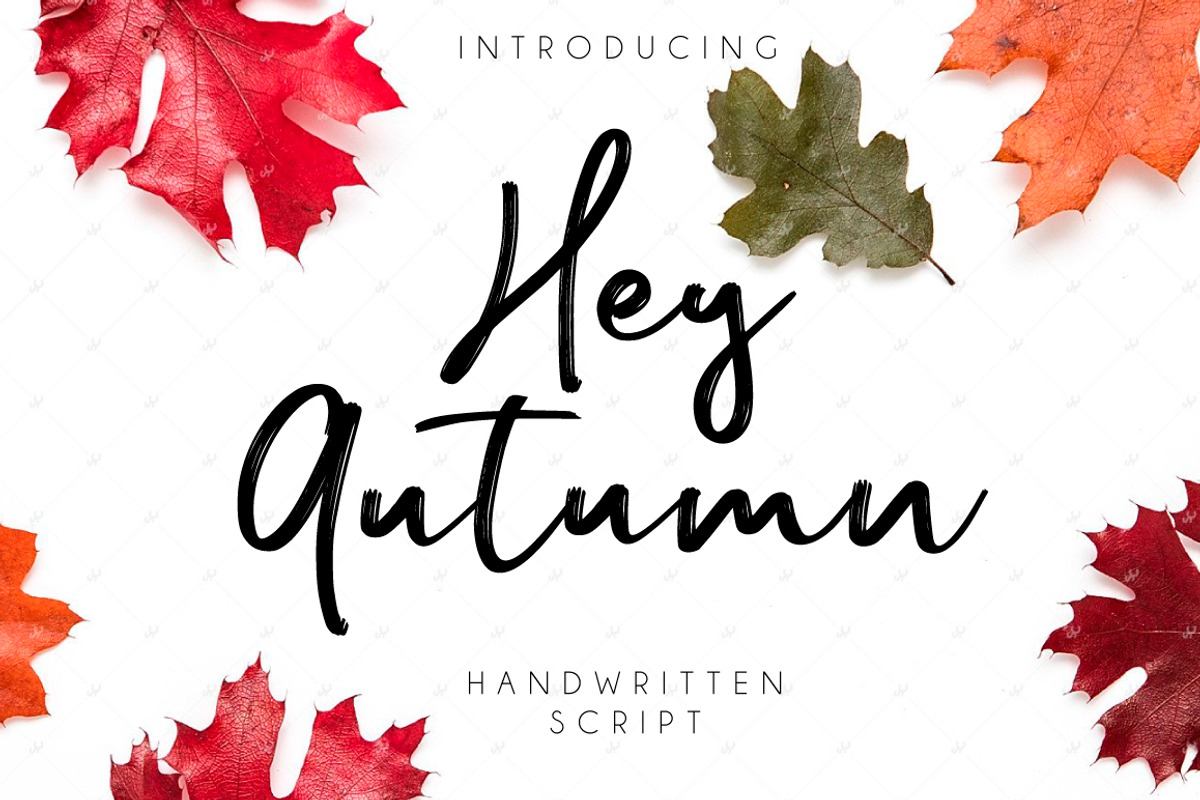
Hey Autumn Font Free Download is a warm and inviting typeface that captures the essence of the fall season. With its flowing, organic curves and charming details, this font is perfect for autumn-themed projects, including seasonal invitations, cozy branding, Thanksgiving materials, and more. Its playful yet sophisticated appearance brings a touch of nature and warmth to any design, making it ideal for cozy cafes, boutique shops, or any project that celebrates the beauty of autumn. Whether you're designing a harvest festival poster or creating personalized fall greetings, Hey Autumn Font Free Download lets you explore its seasonal beauty in personal projects before purchasing a commercial license. Infuse your designs with the warmth and charm of autumn with this lovely script font.